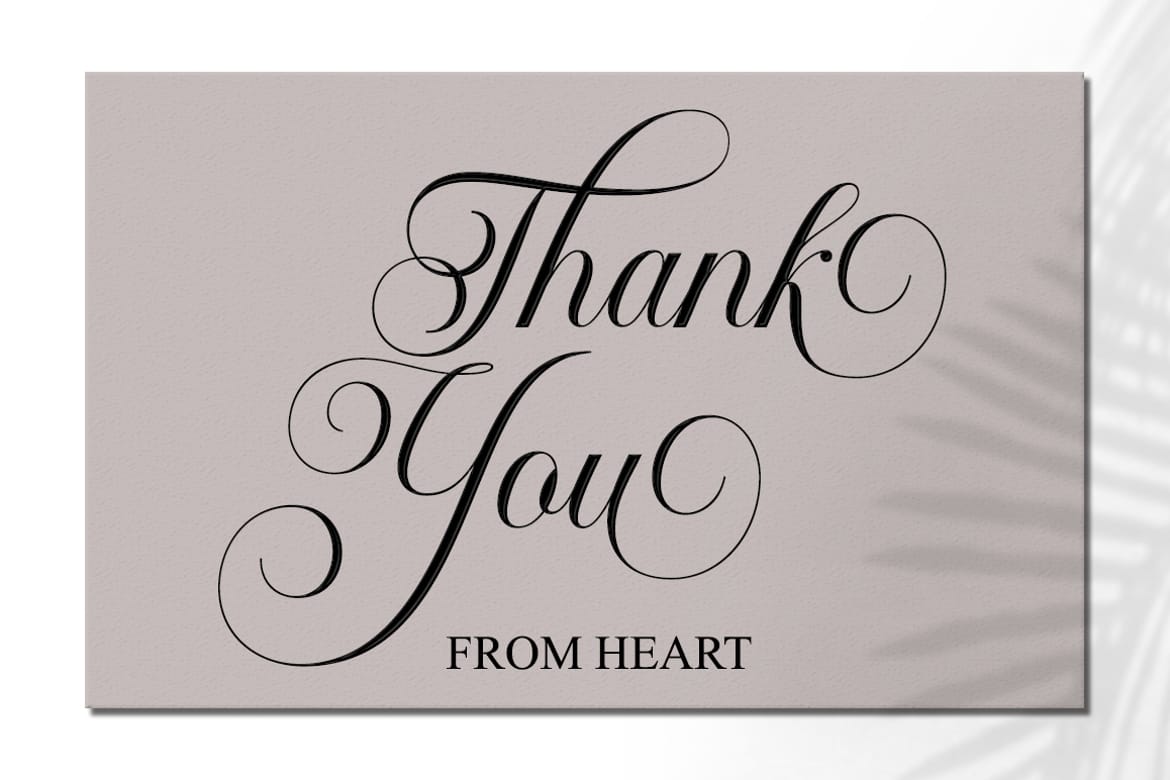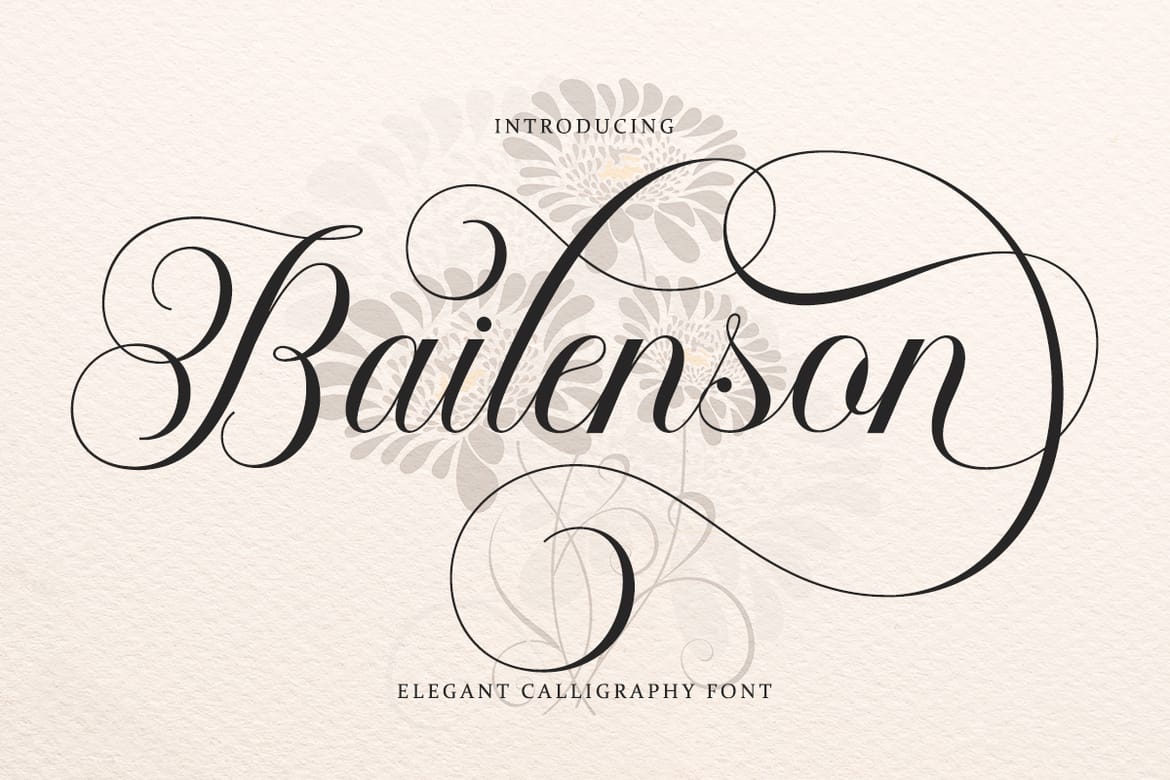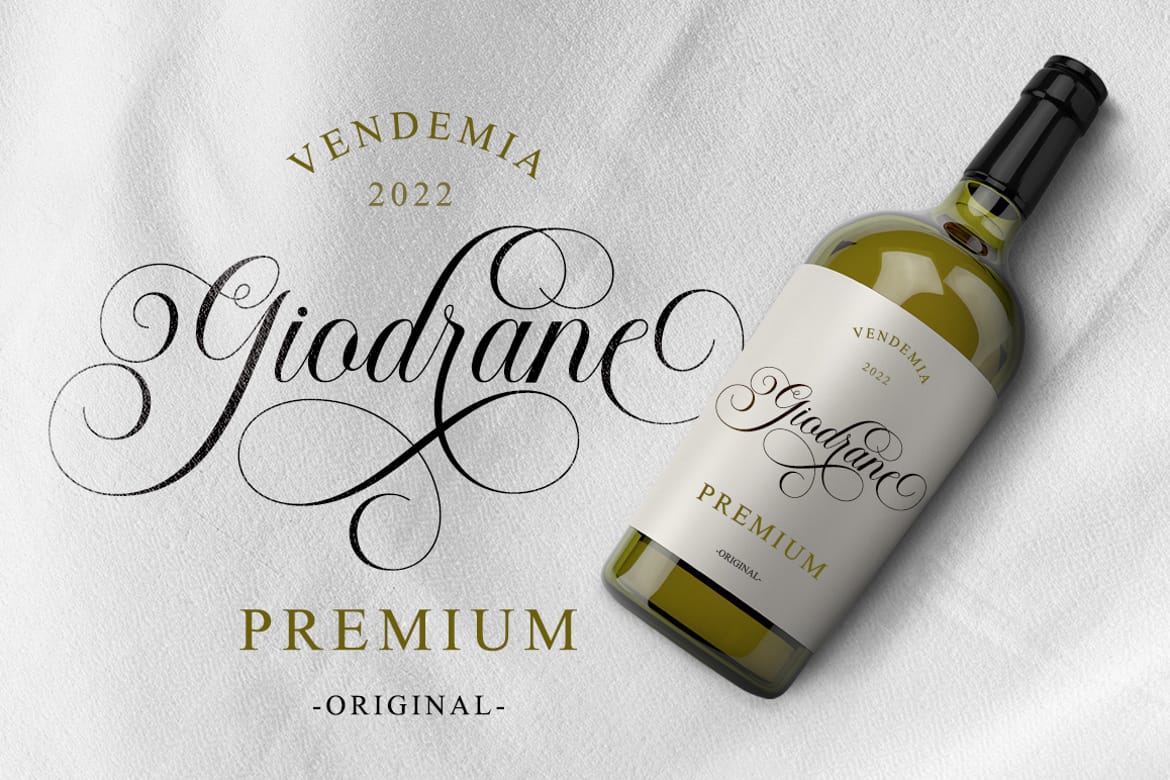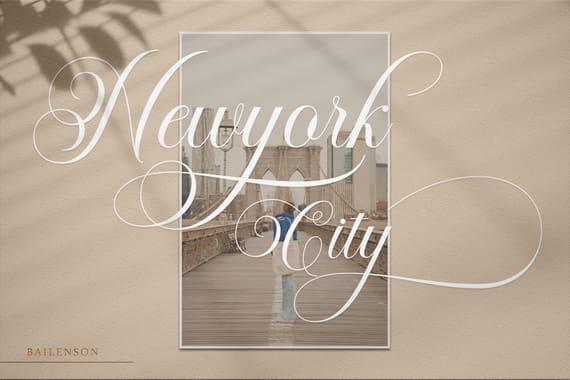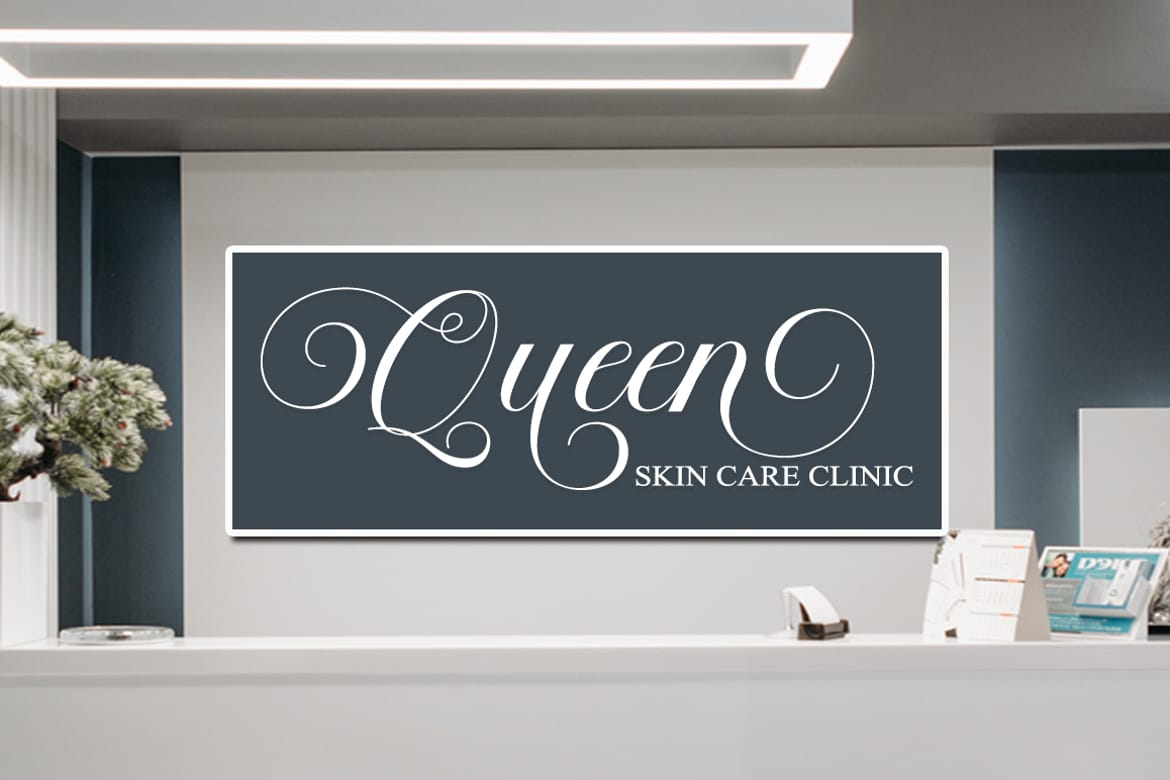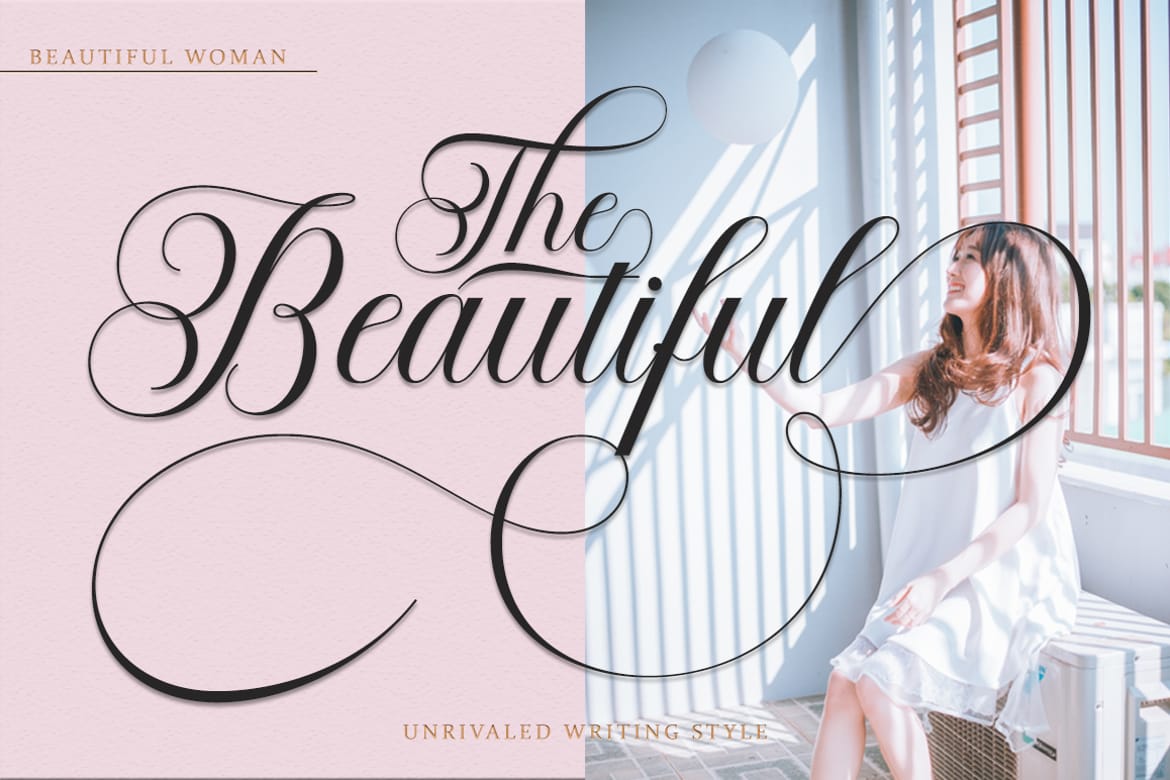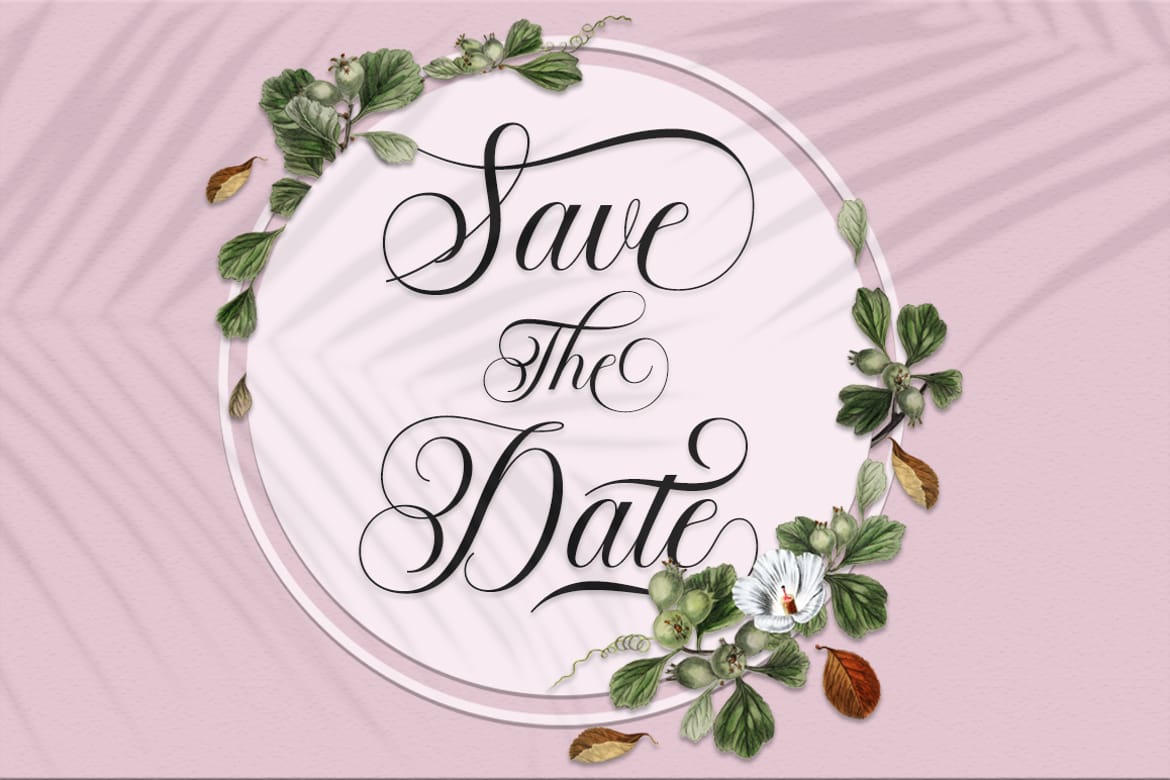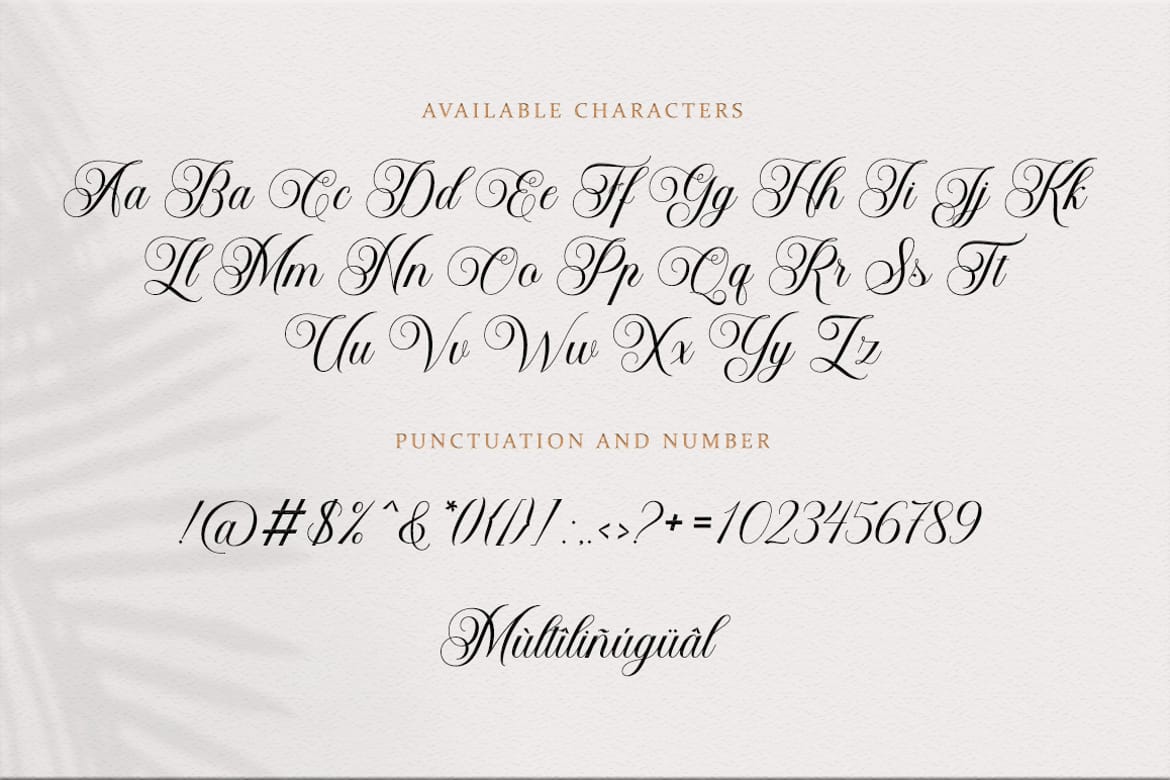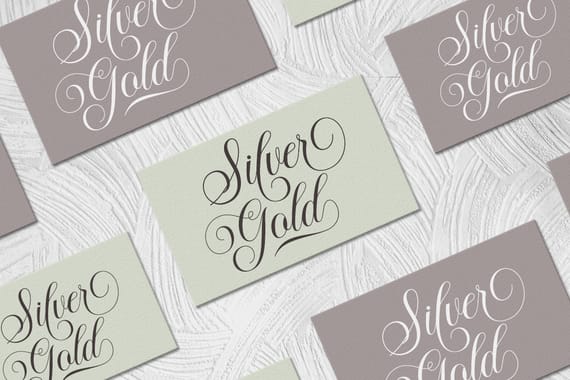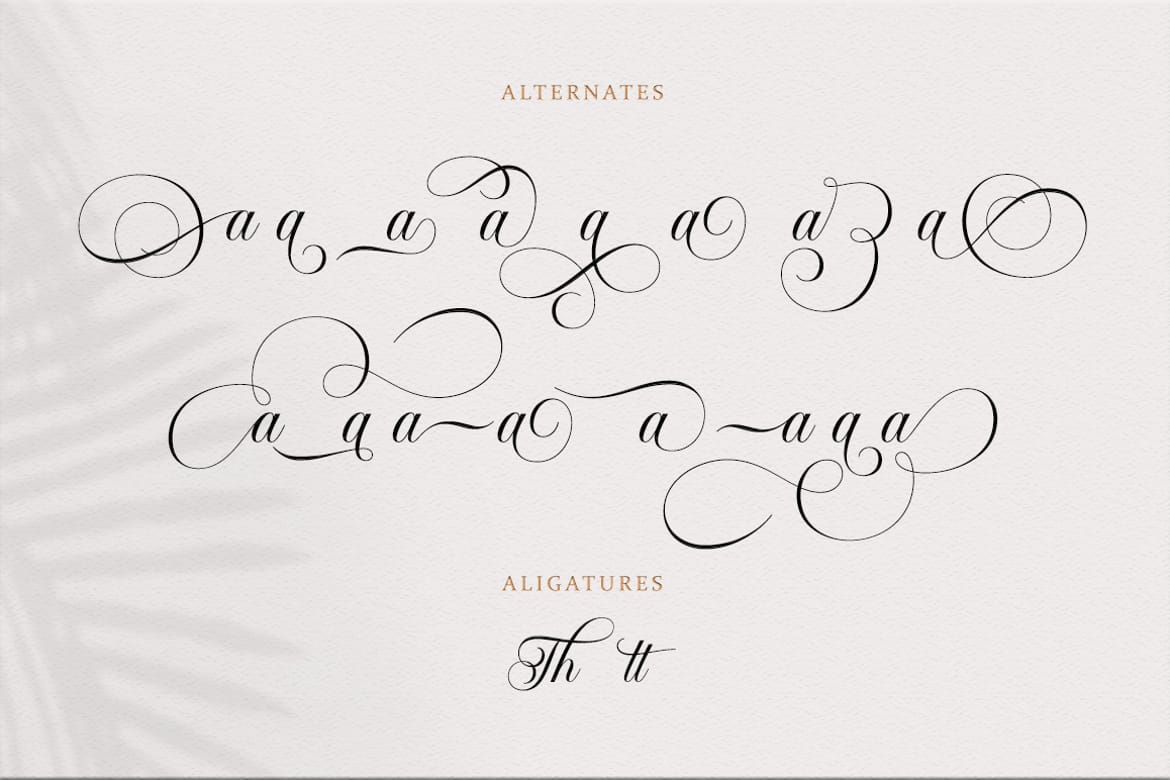
Bailenson is a calligraphic font with a classic style and an elegant touch, inspired by Italian women's handwriting and ancient manuscripts. Carefully designed to work together in harmony making it perfect for wedding favors, book covers, greeting cards, logos, branding, business cards and certificates, even for any design work that requires classic, formal or luxury.
multilingual support and custom ligatures
- Stylistic Alternates
- Ligatures
- Multilingual support
- Uppercase
- Lowercase
- Numbers and Punctuation